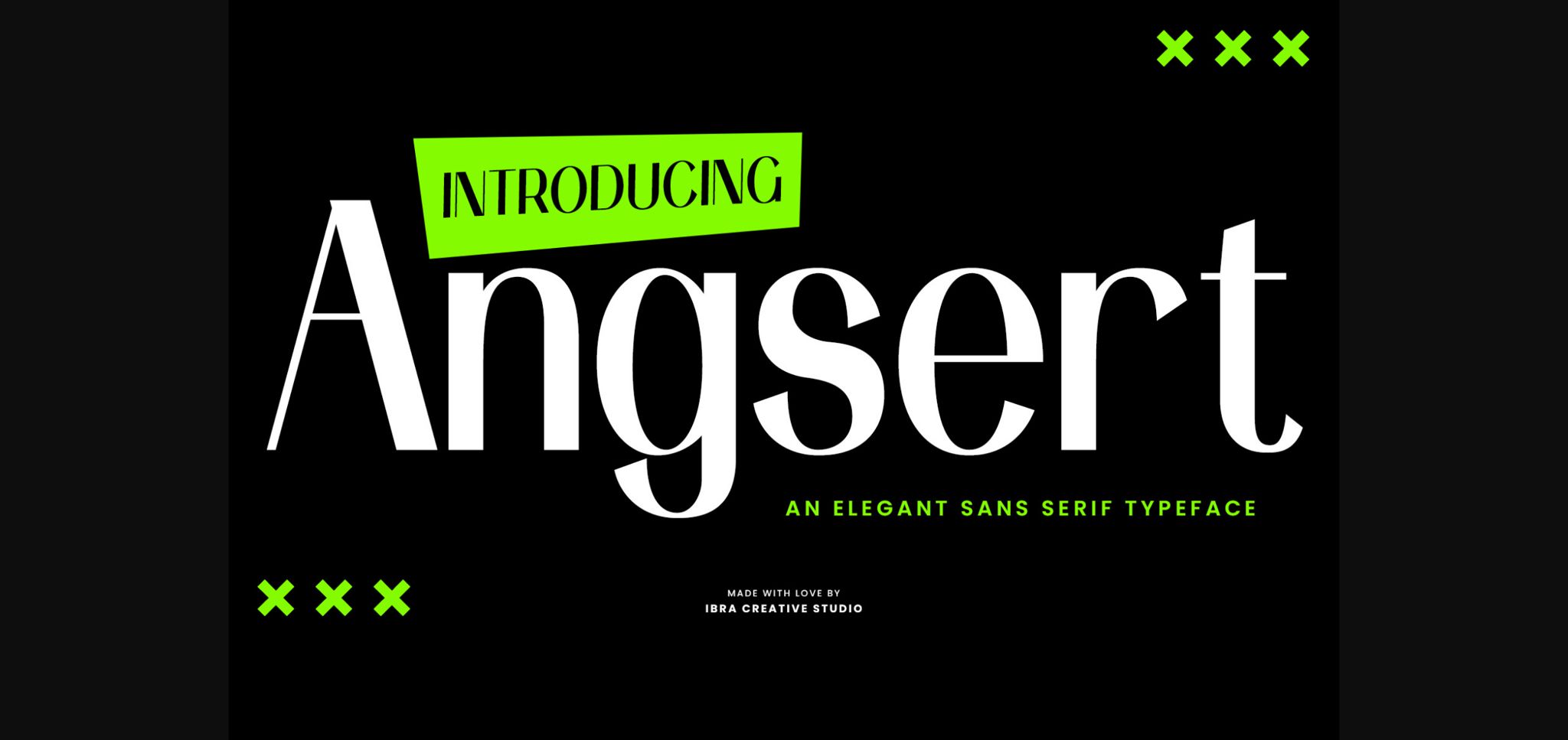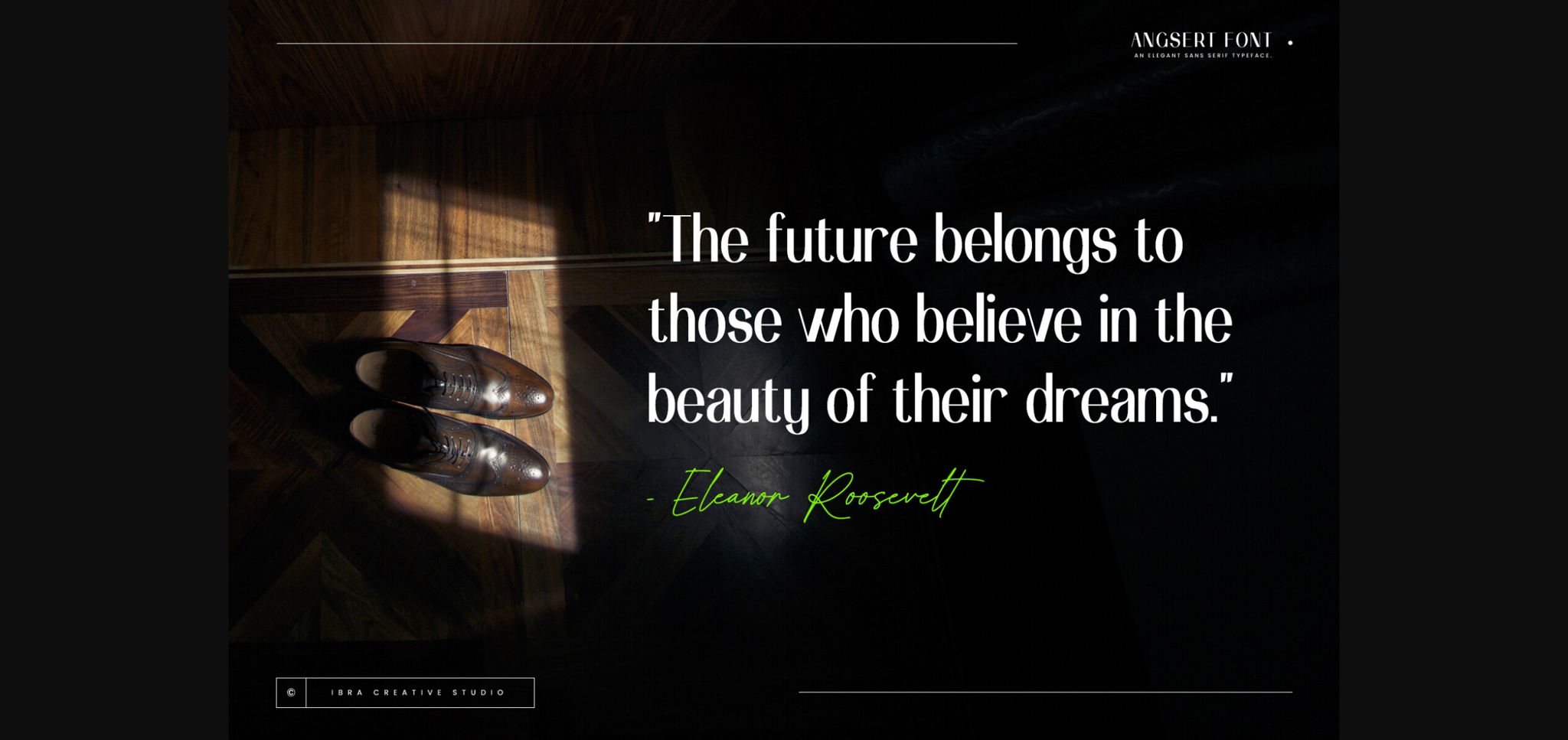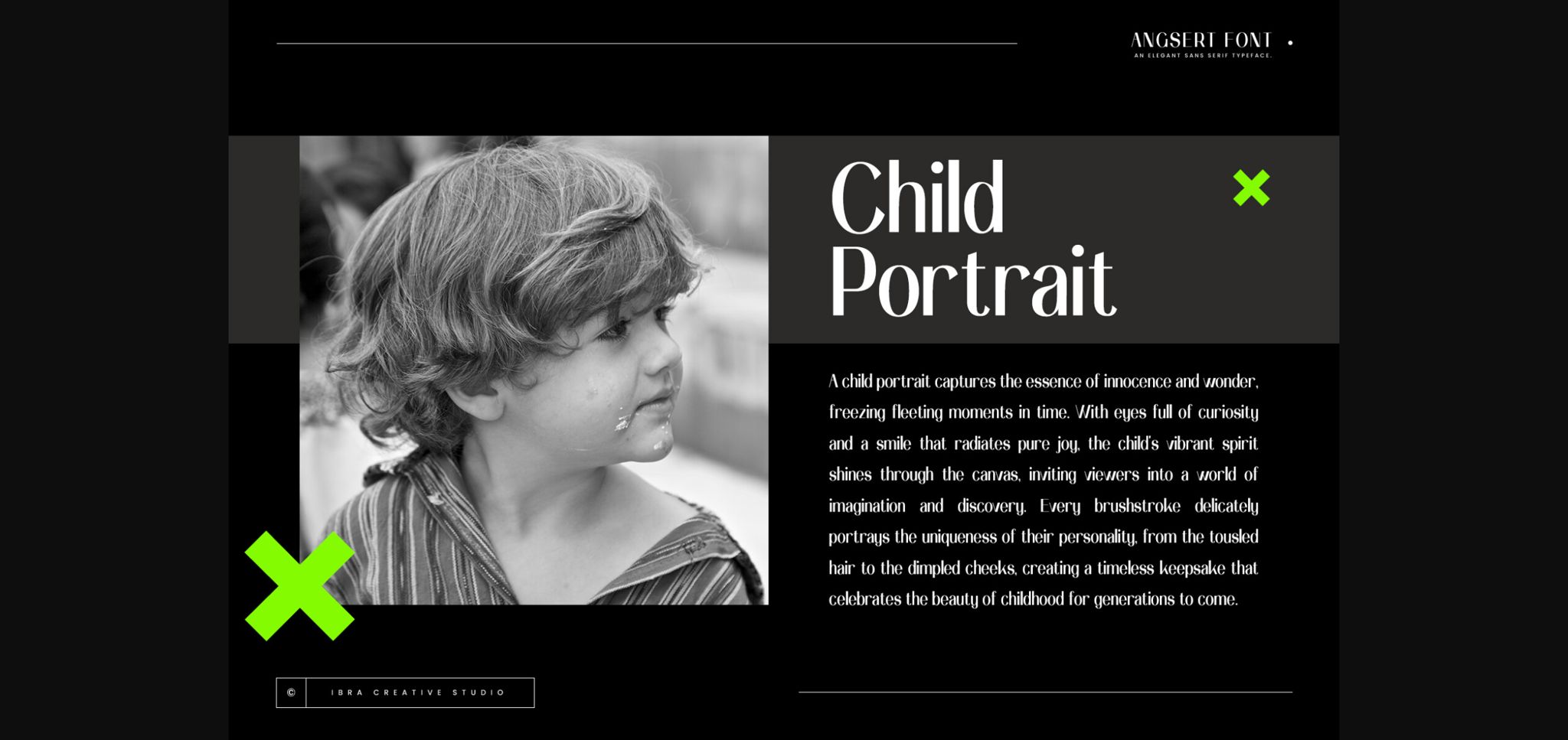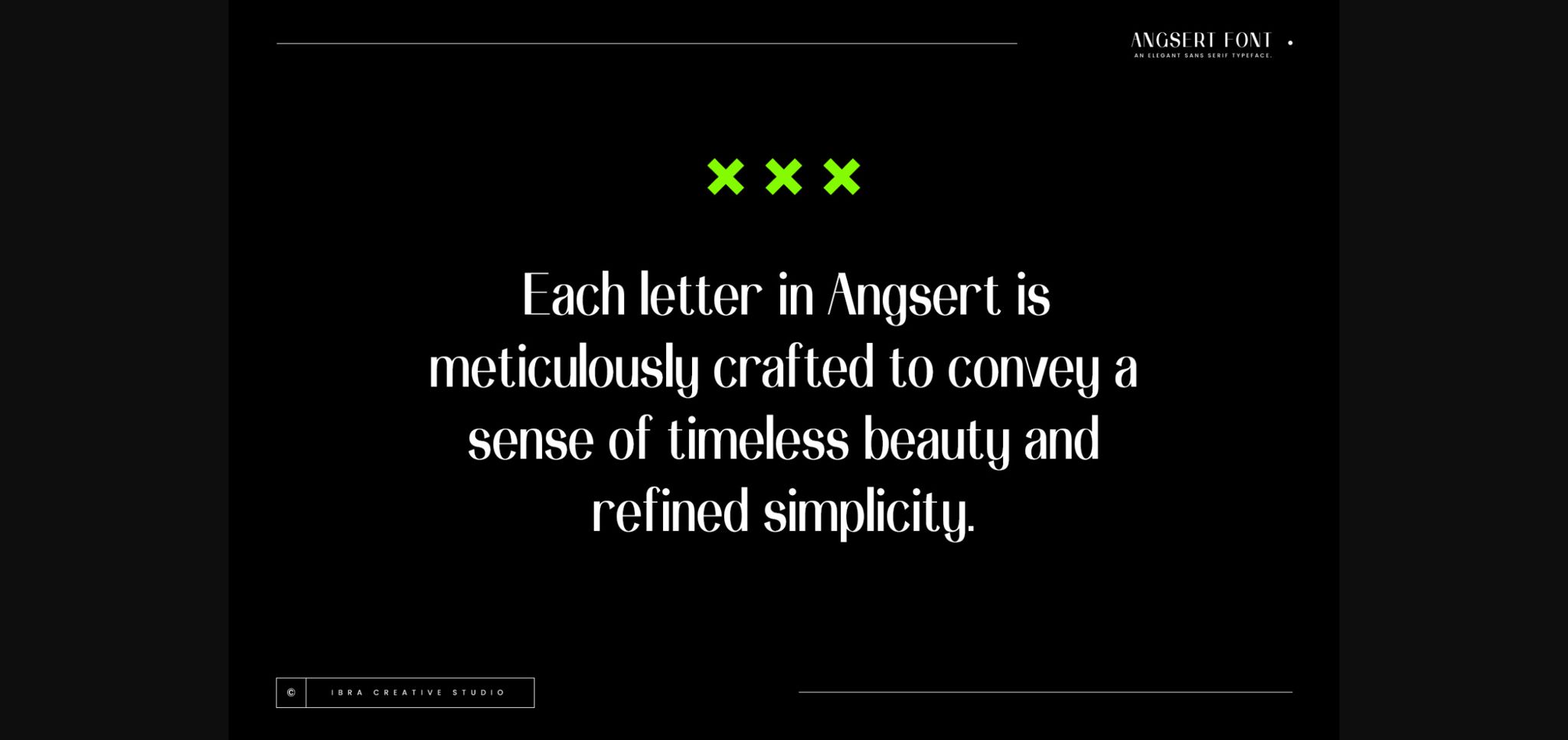
About Angsert Font
Angsert, an elegant sans serif typeface, exudes sophistication and modernity with its clean lines and balanced proportions. Each letter in Angsert is meticulously crafted to convey a sense of timeless beauty and refined simplicity. Ideal for a wide range of design applications, from branding to editorial layouts, Angsert offers versatility and legibility while maintaining a sense of understated elegance.